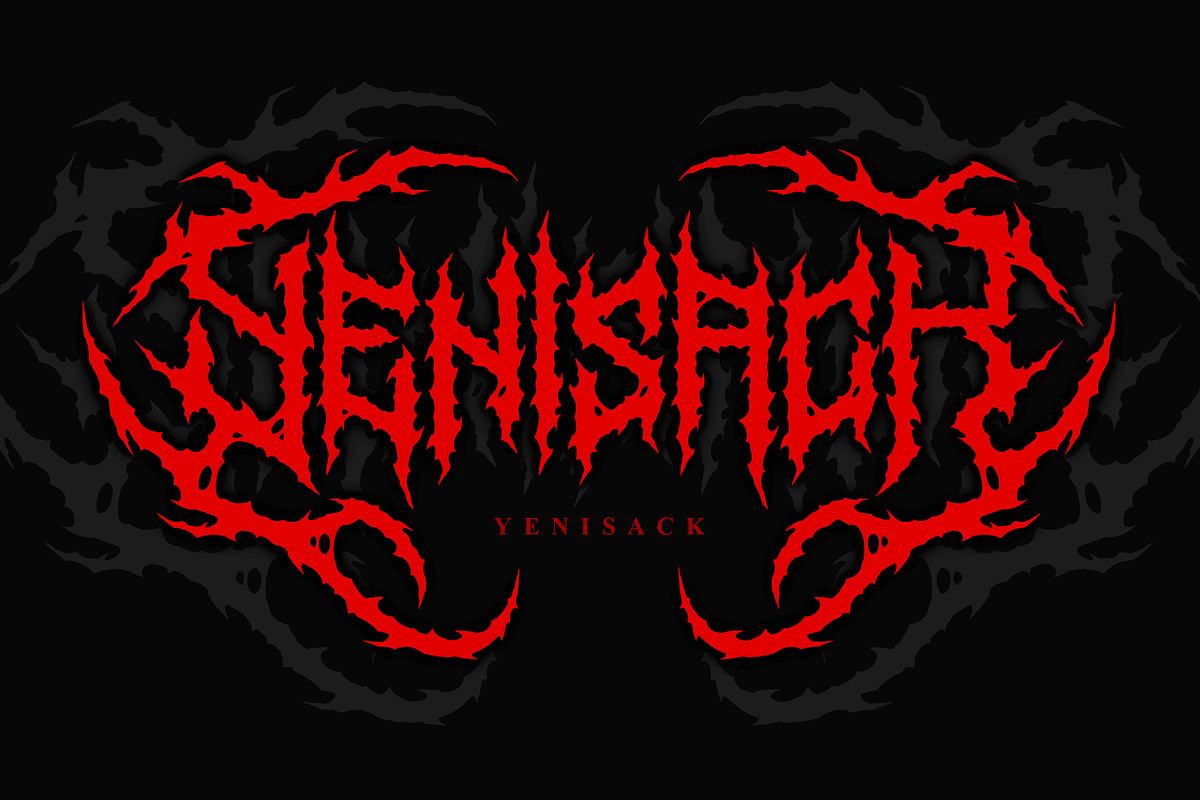
Yenisack | Black Metal Font Vol. 5 Free Download
The Yenisack | Black Metal Font Vol. 5 Free Download is a bold and edgy typeface inspired by the black metal genre, perfect for creating intense, heavy designs. Ideal for album covers, posters, logos, and any project that requires a strong, rebellious aesthetic, this font brings a raw, powerful energy to your work. Please note, for commercial use, a license must be purchased. You can download it for free for testing purposes.
With its sharp edges and aggressive design, the Yenisack | Black Metal Font Vol. 5 Free Download is ideal for projects that need a dark, intense, and gritty feel. Whether you're designing for a music event, band branding, or creative artwork, this font will add a striking, bold touch to your designs.